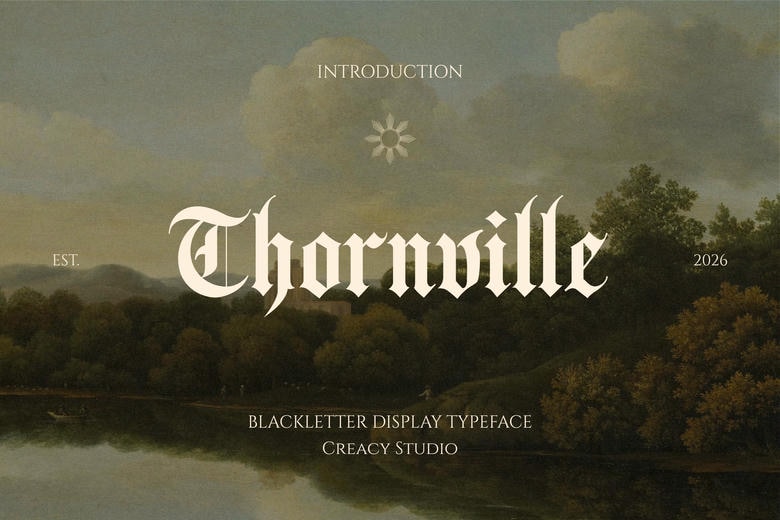
Thornville brings together old-world charm, medieval drama, and gothic style in a modern blackletter display typeface. It mixes classic calligraphy with clean, modern lines. With sharp, spiky ends, bold vertical lines, and smooth curves, Thornville stands out and is easy to read in display headers.
Thornville Blackletter Font